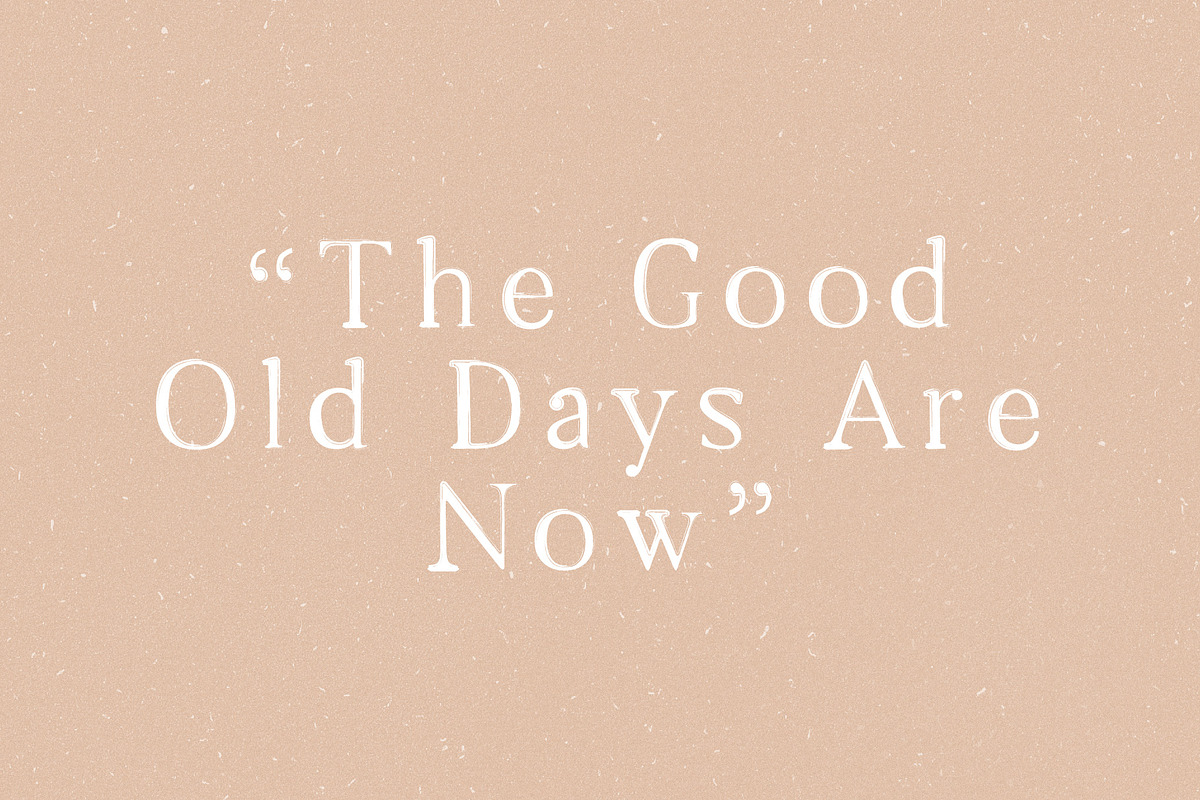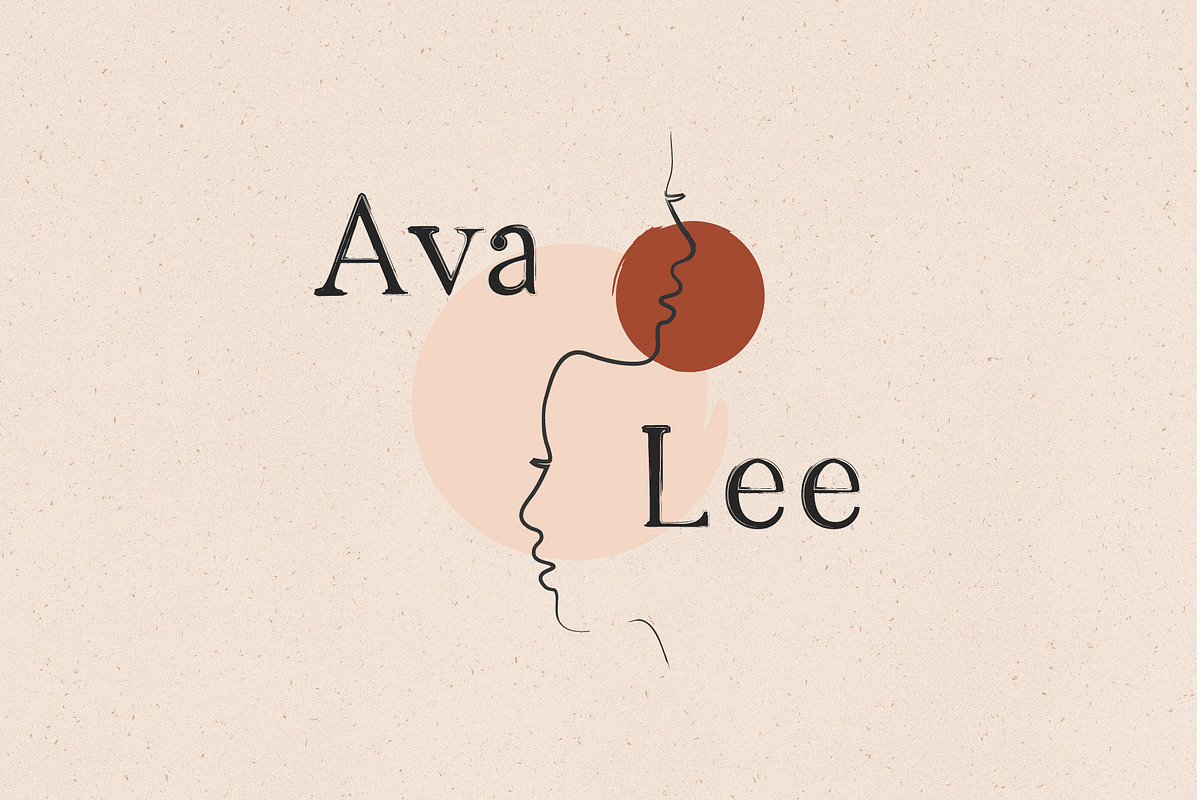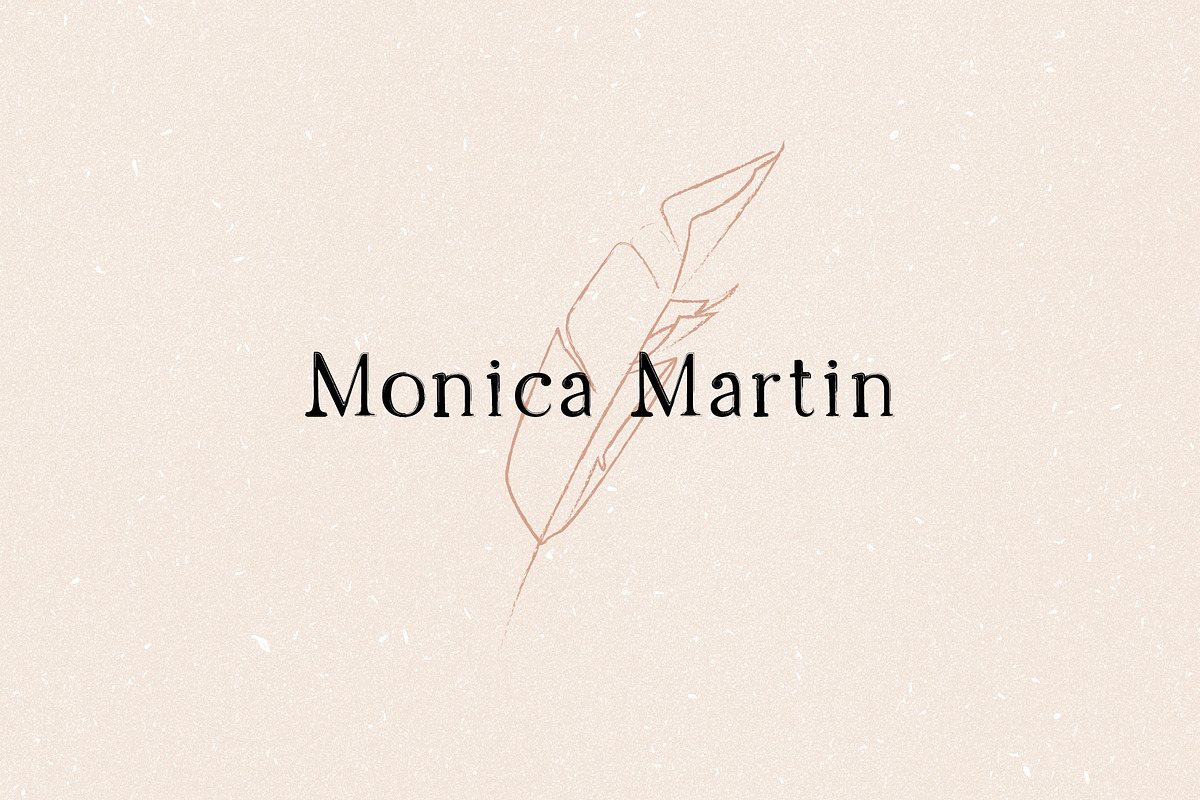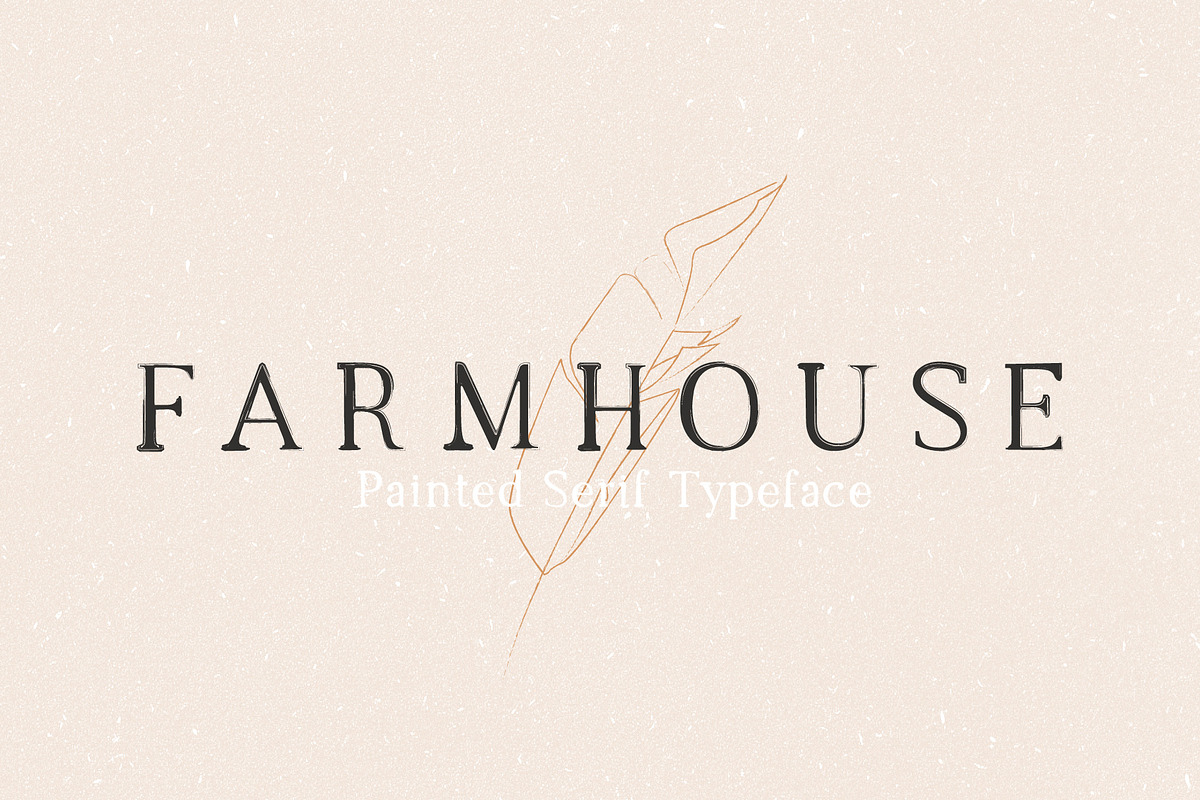
Farmhouse - Painted Serif Font
Farm House is a hand painted textured serif font that is a mix between a typewriter style and a modern serif. Great for those natural logos and quotes, Farmhouse is also quite legible at small sizes as body copy.